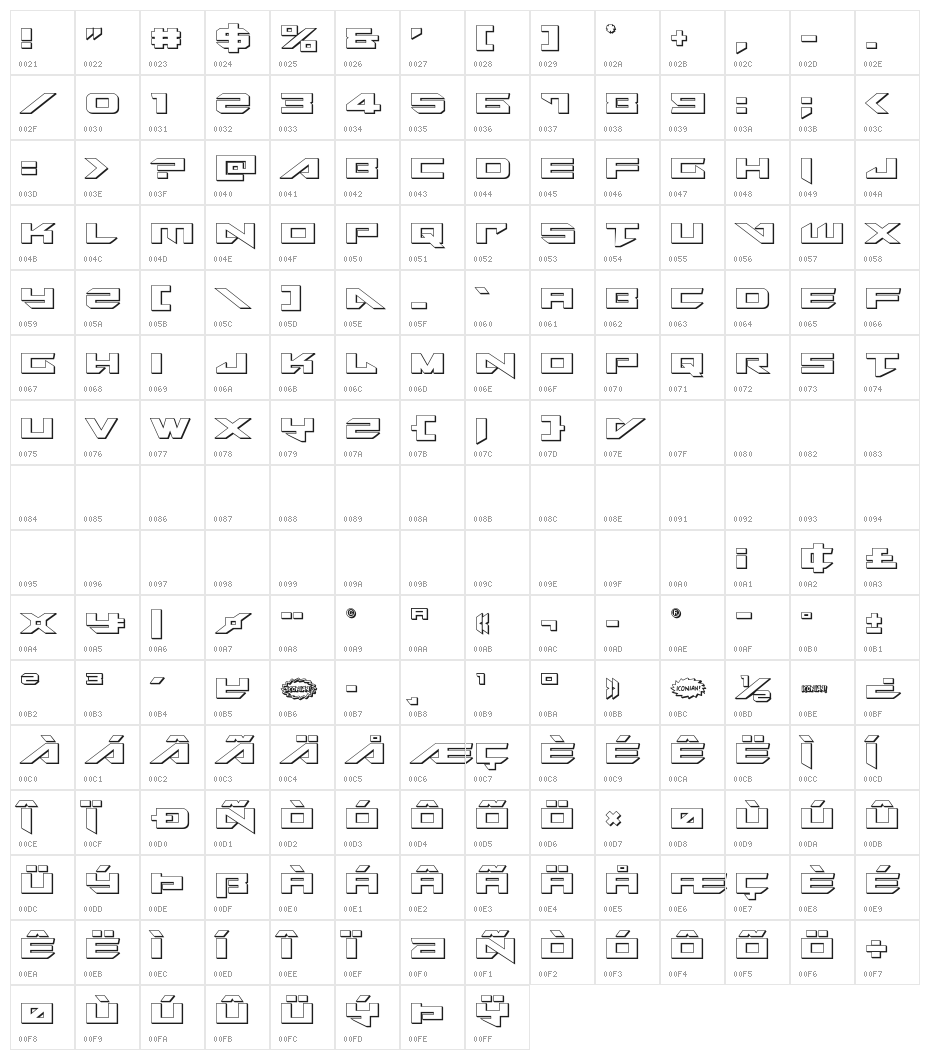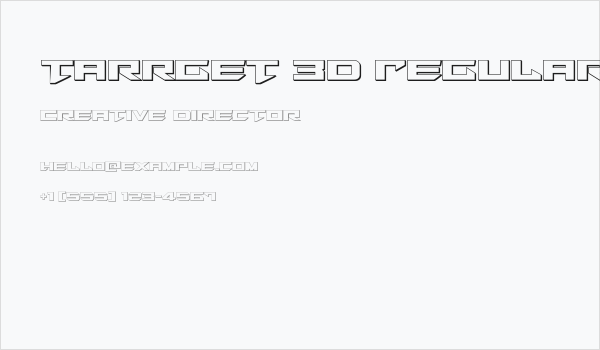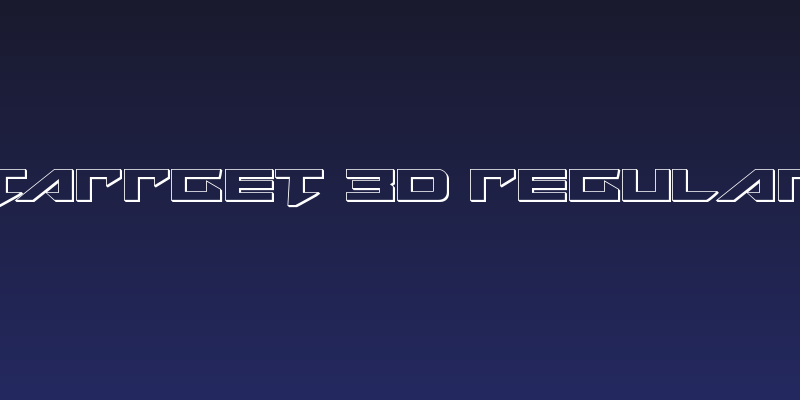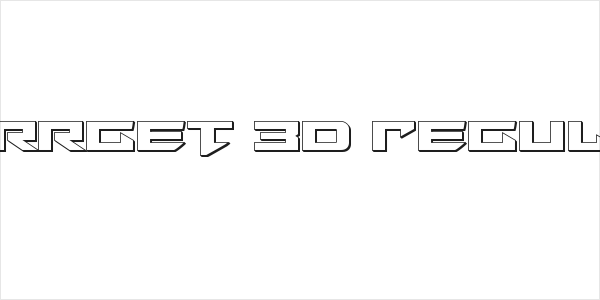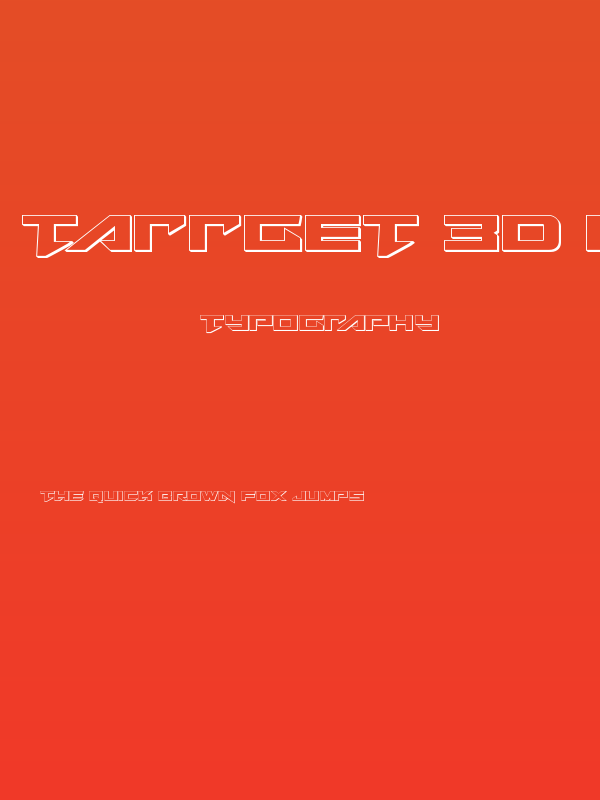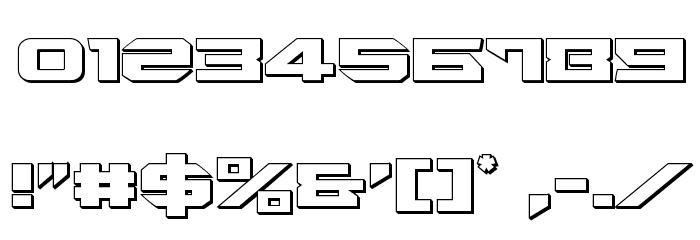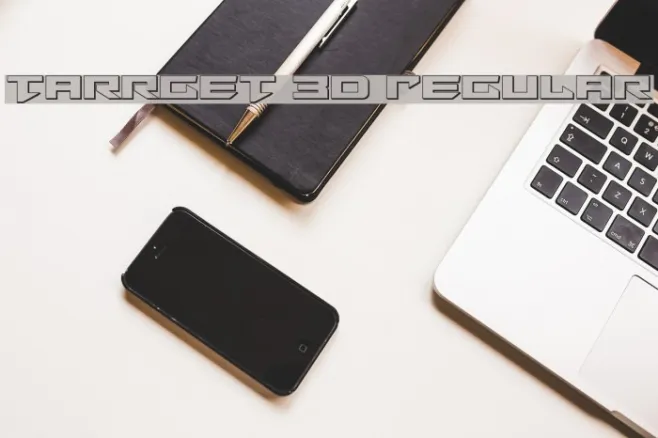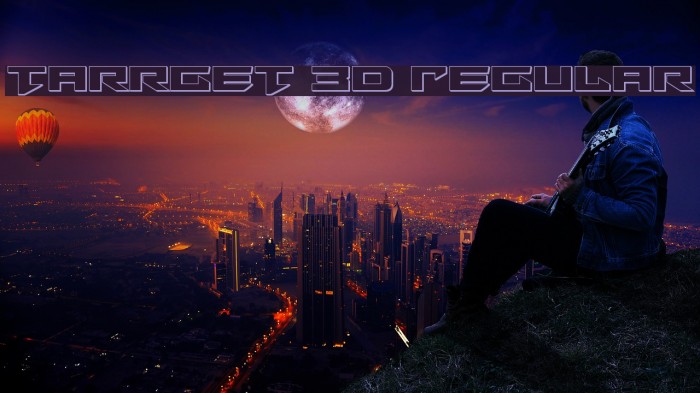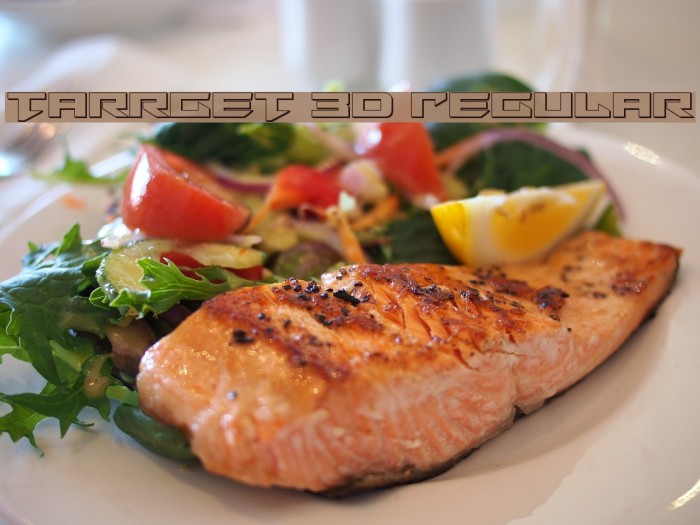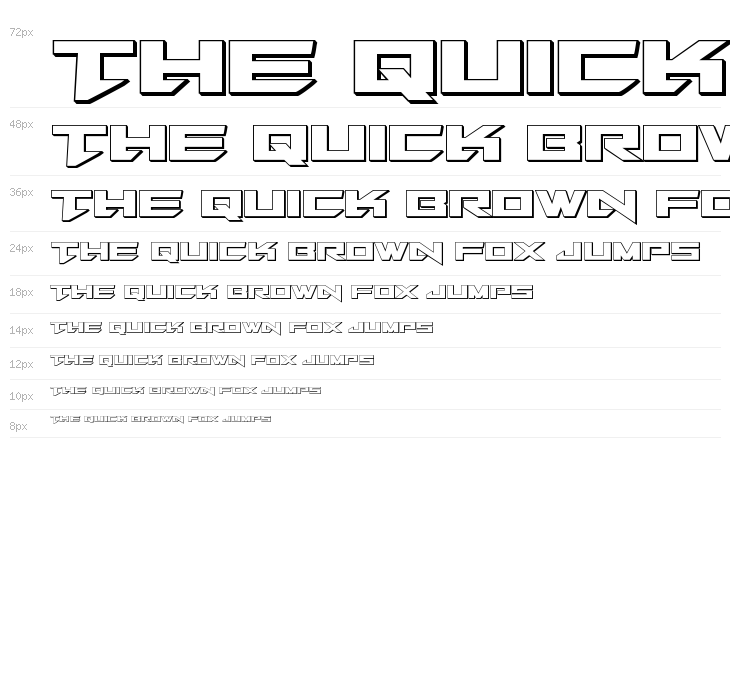
Tarrget 3D Regular Font
Tarrget 3D Regular Description
This font features a bold, three-dimensional design with a futuristic and angular aesthetic. The characters are outlined with a thick border, giving them a strong presence. The geometric shapes and sharp edges create a sense of depth and modernity. The uppercase and lowercase letters maintain a consistent style, with the numbers and special characters following the same design principles. This font is ideal for projects that require a standout, tech-inspired look.
| Proposed Projects | Ideal for sci-fi themed designs, video game titles, tech branding, and futuristic posters. |